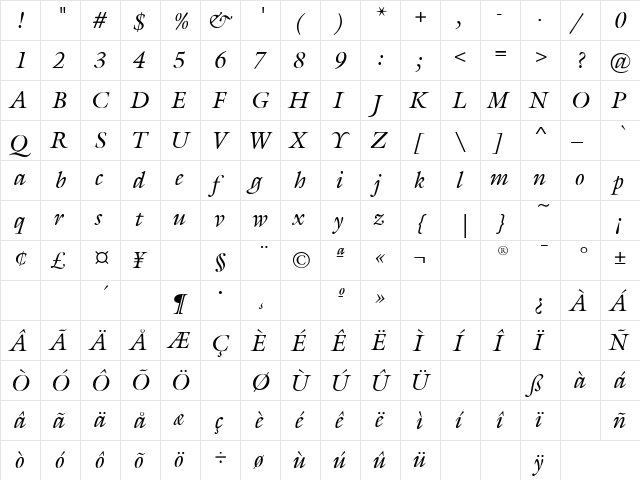
Galliard EF Roman Italic Regular
Design Context for Galliard EF Roman Italic Typeface
Galliard EF Roman Italic offers clean, dependable letterforms without strong stylistic allegiance, making it a practical choice for designers who need flexibility. The slanted form adds forward momentum and visual energy.
Pro Tip: Use Galliard EF Roman Italic for emphasis, pull quotes, and subheadings where its slanted energy can add rhythm to the layout.